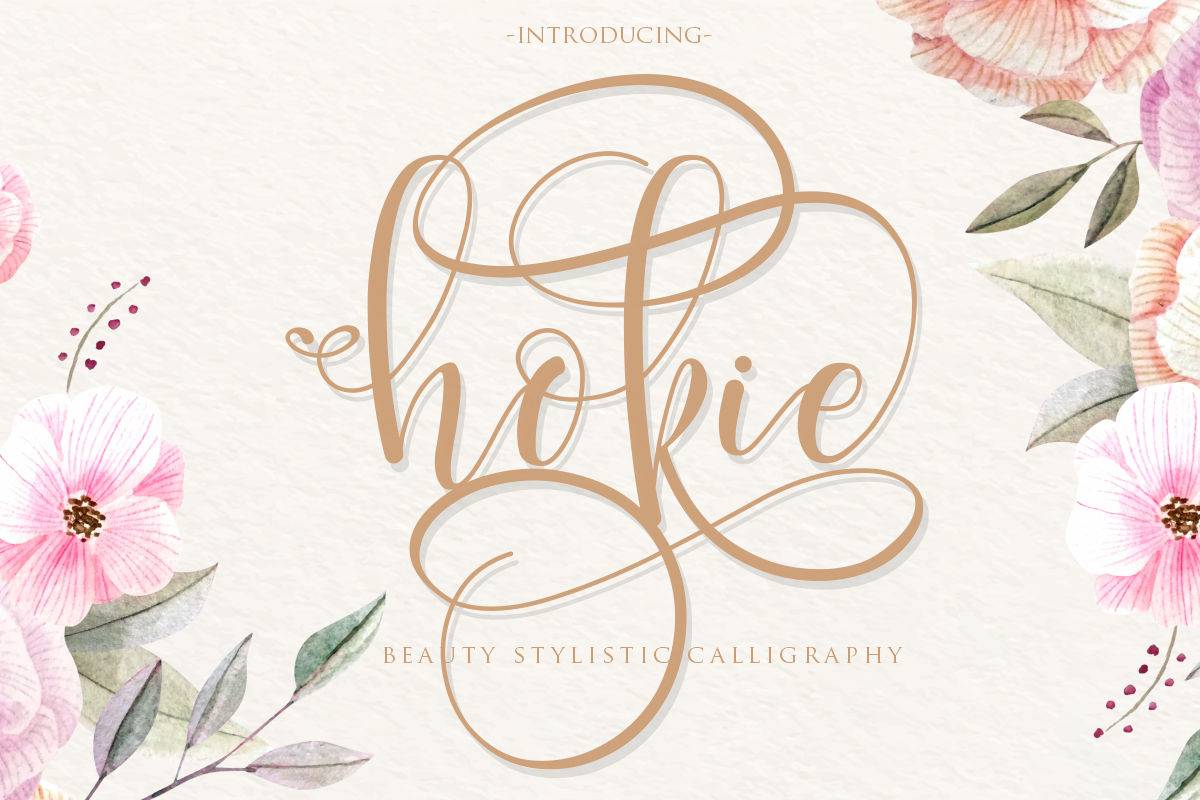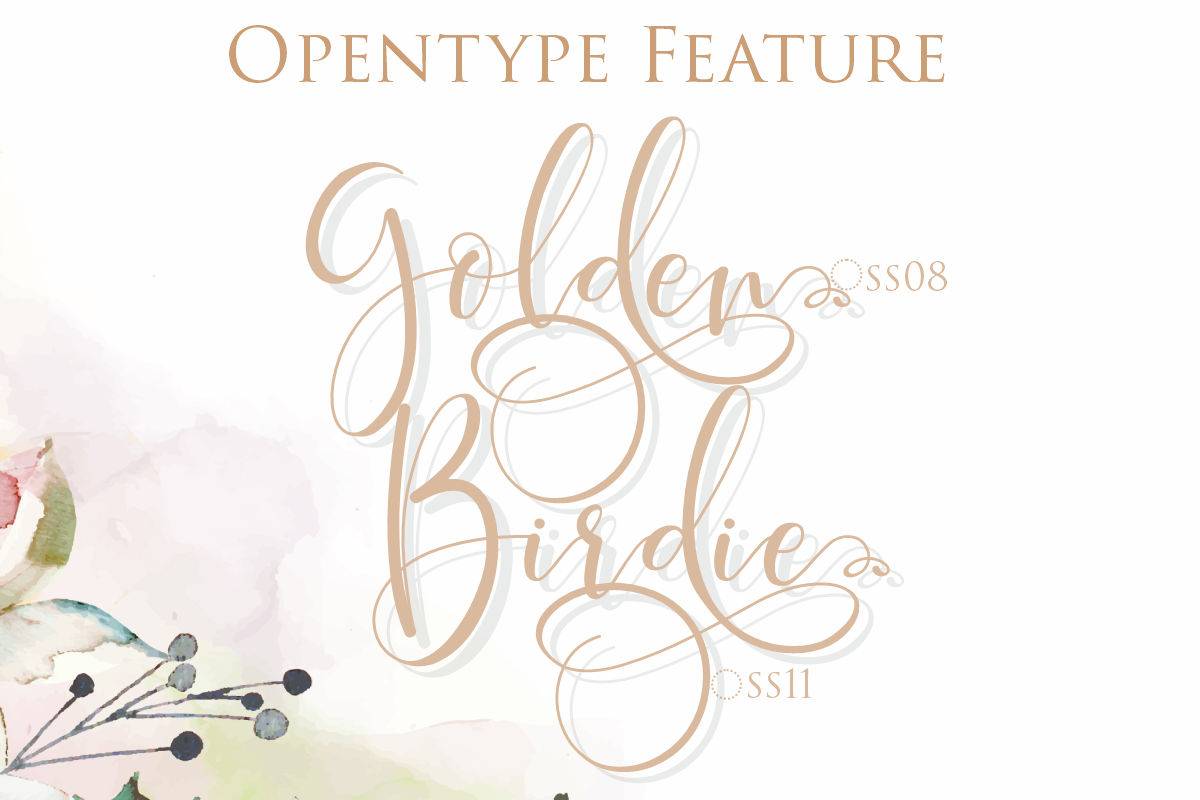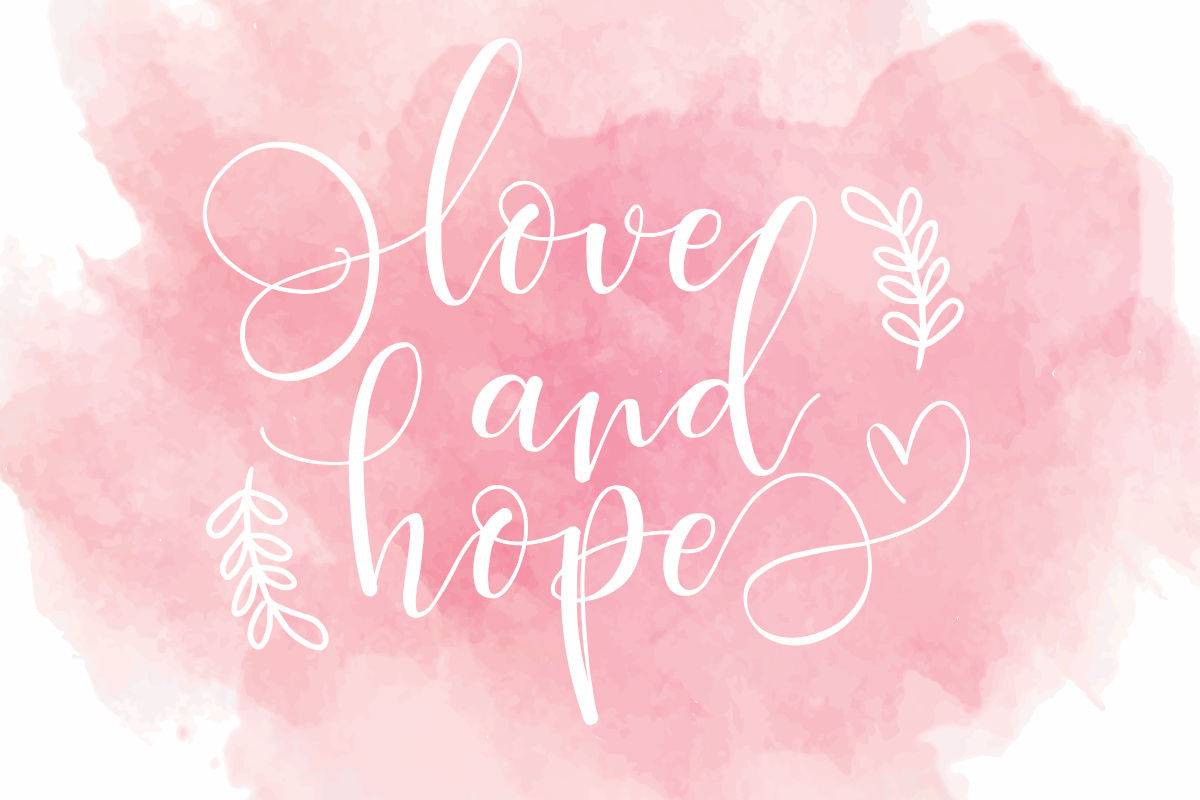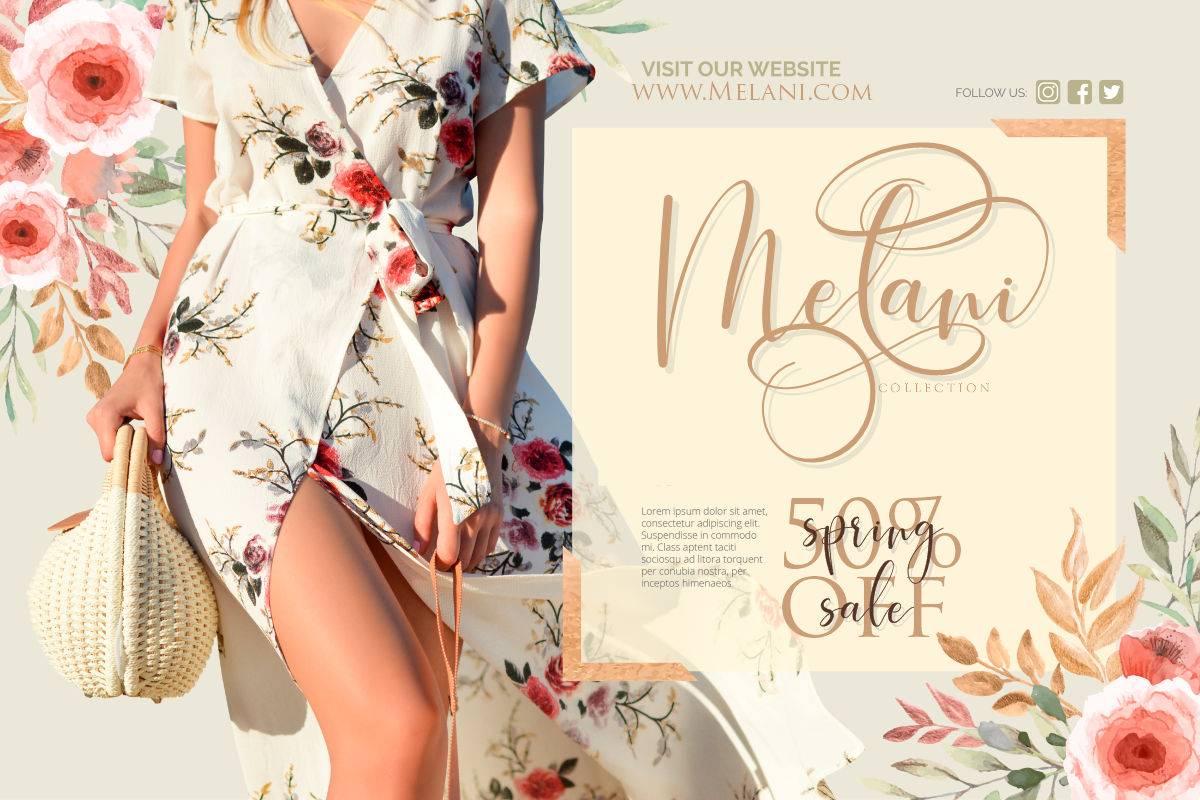
Hokie Font is an elegant, handwritten script typeface with delicate, flowing strokes and a sophisticated, airy feel. Its fine lines and tall x-height give it a graceful yet contemporary look, making it perfect for invitations, branding, and any design needing a touch of whimsy and elegance. This font shines in creative projects where a personal, artistic flair is desired.
Hokie Font
About Hokie Font
| Font family | Hokie Font |
| Designer | Gilar Studio. |